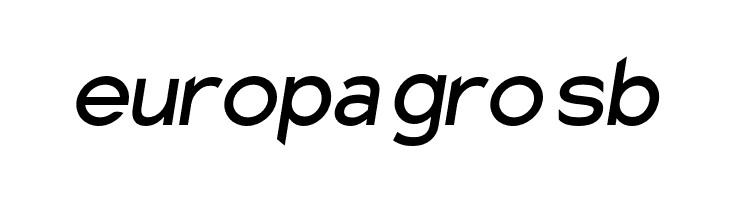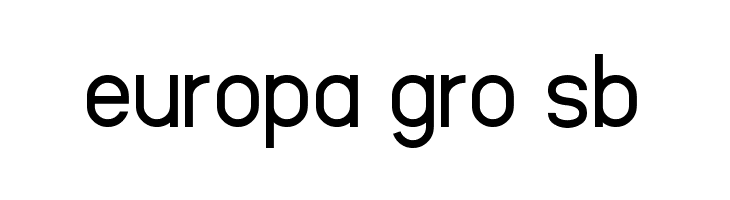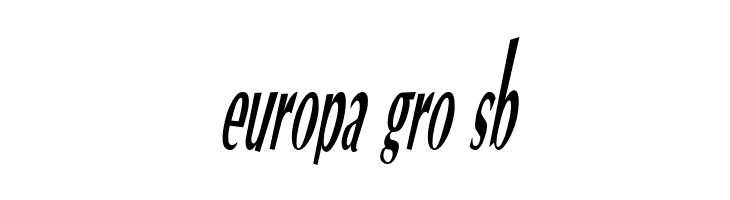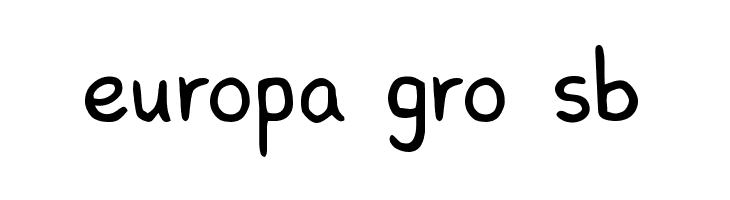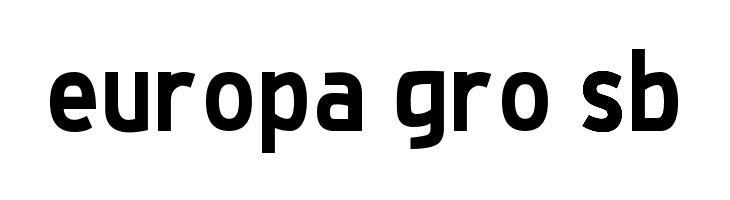
A bold, clean sans-serif font with geometric shapes and uniform strokes.
A bold, italic font with a dynamic and modern style.
A modern, clean sans-serif font with a slightly condensed style.
A playful, rounded font with consistent strokes and slight irregularities for a casual look.
A bold, modern sans-serif font with a clean and uniform design.